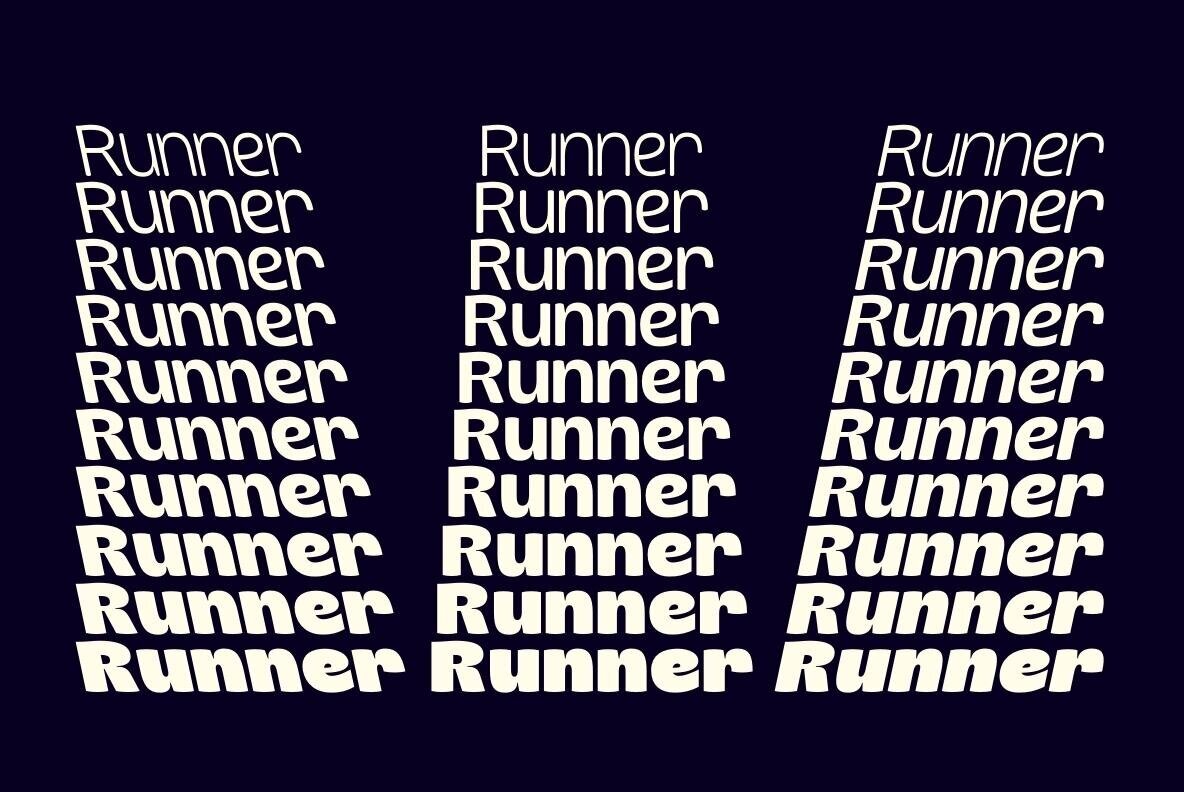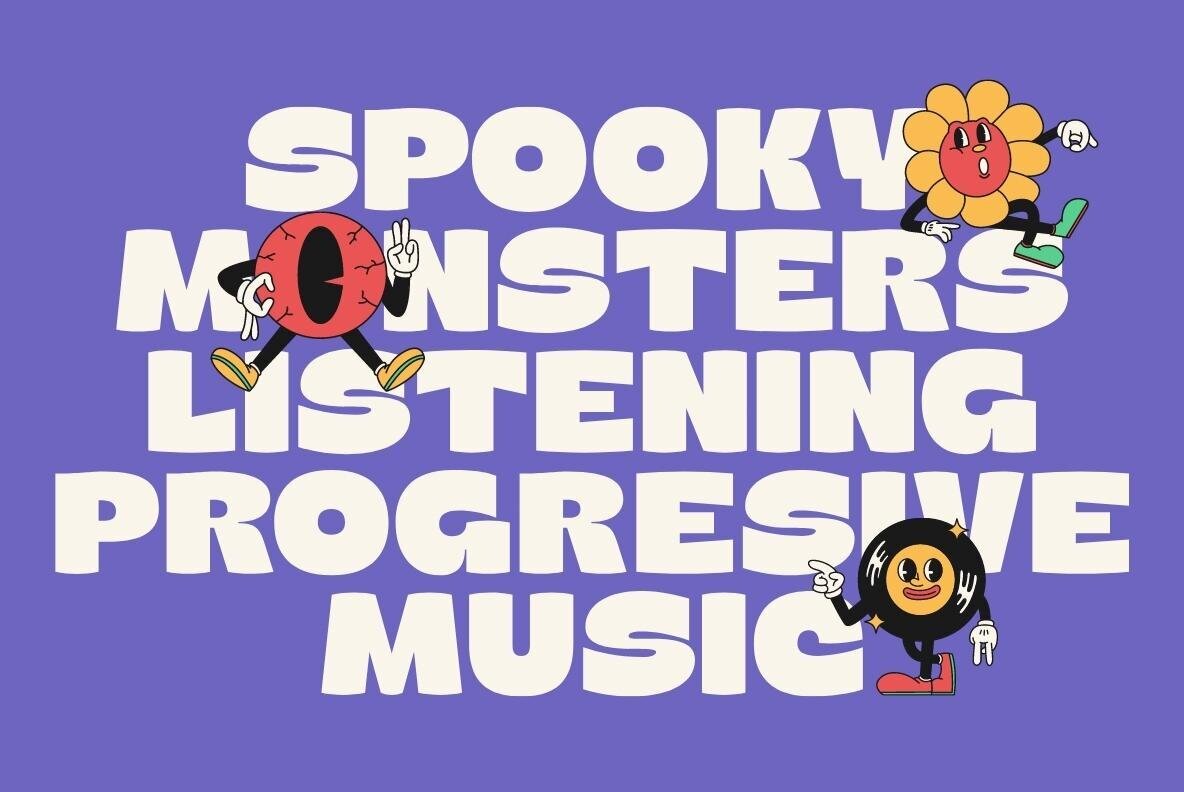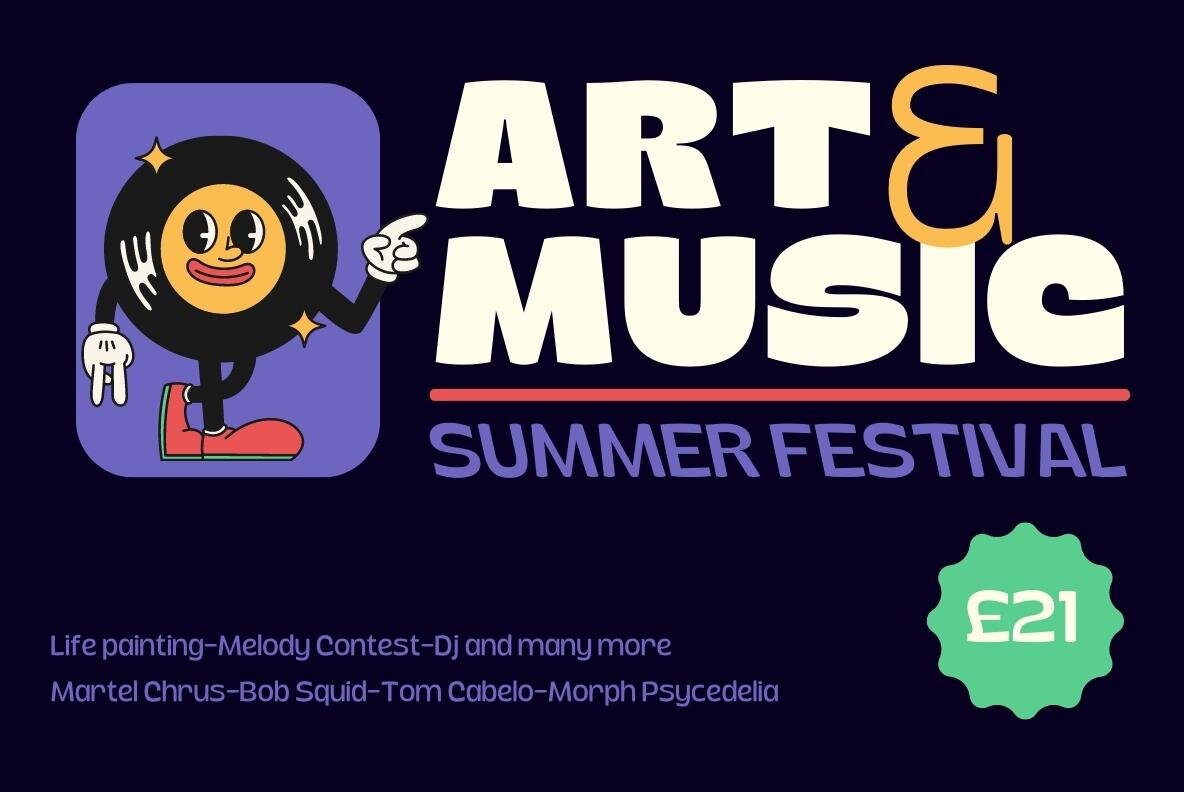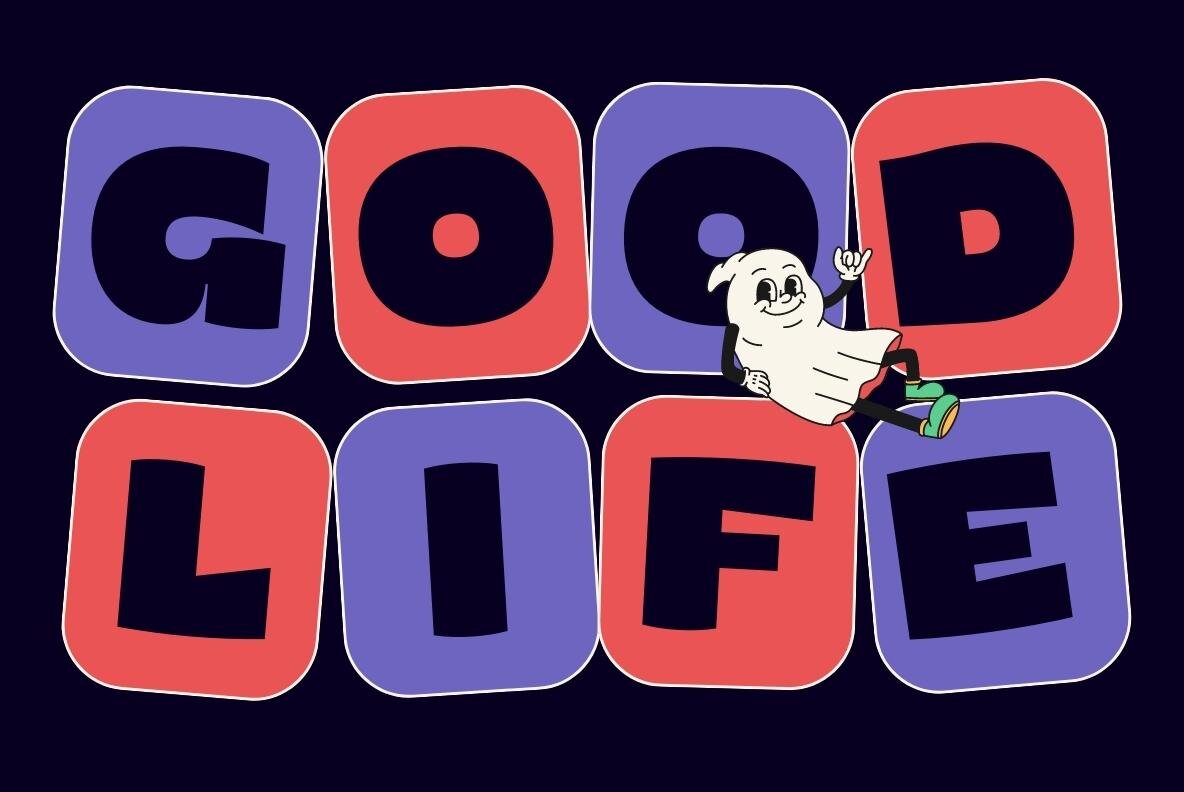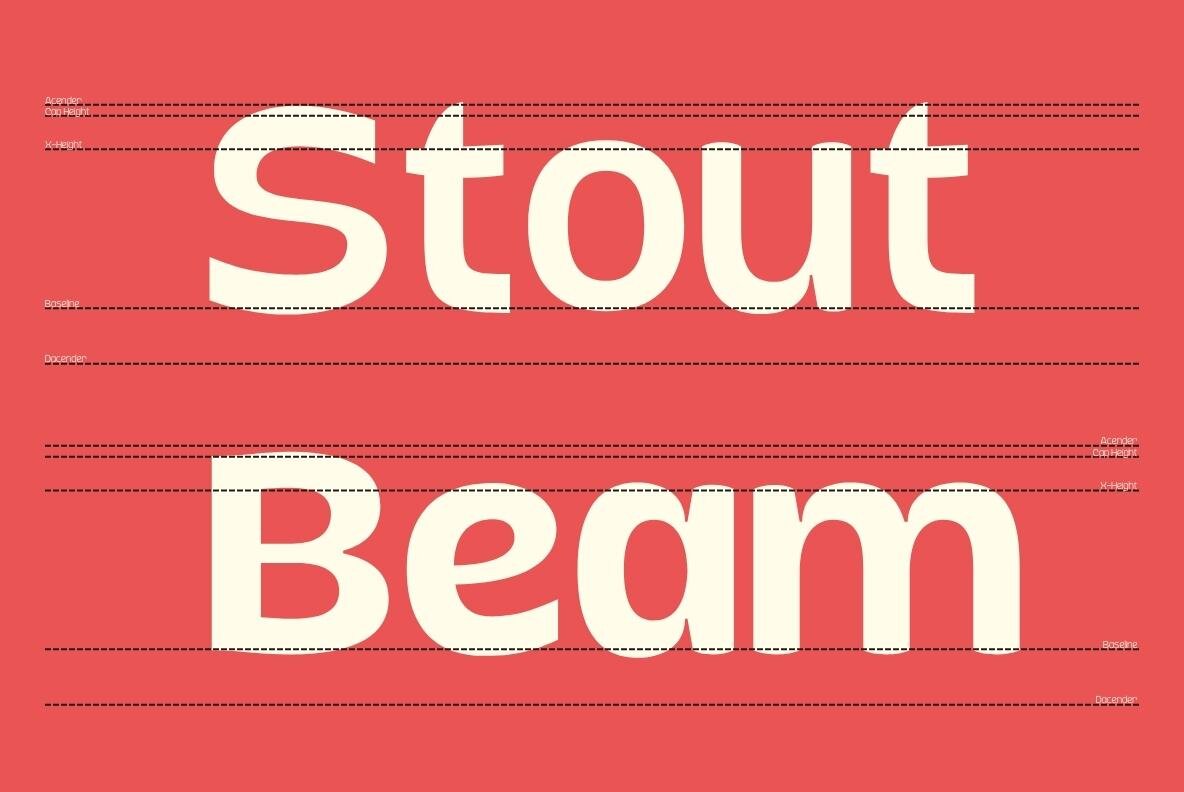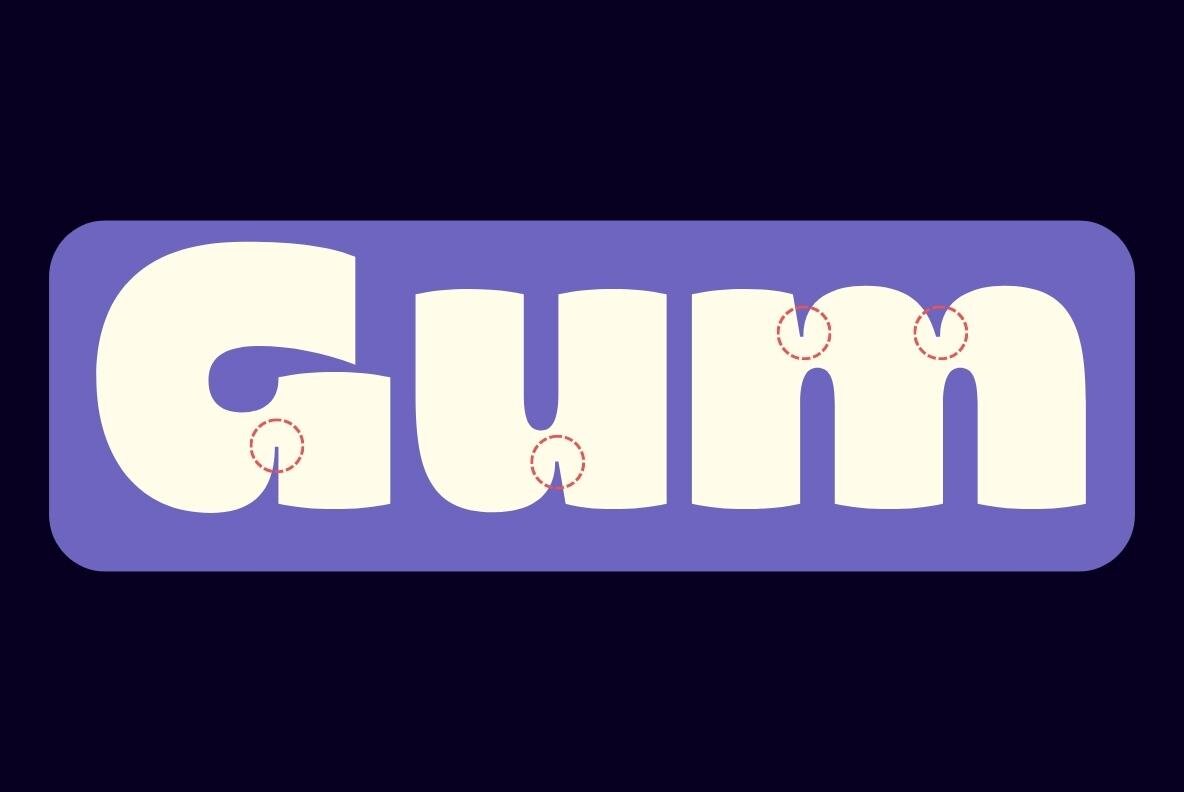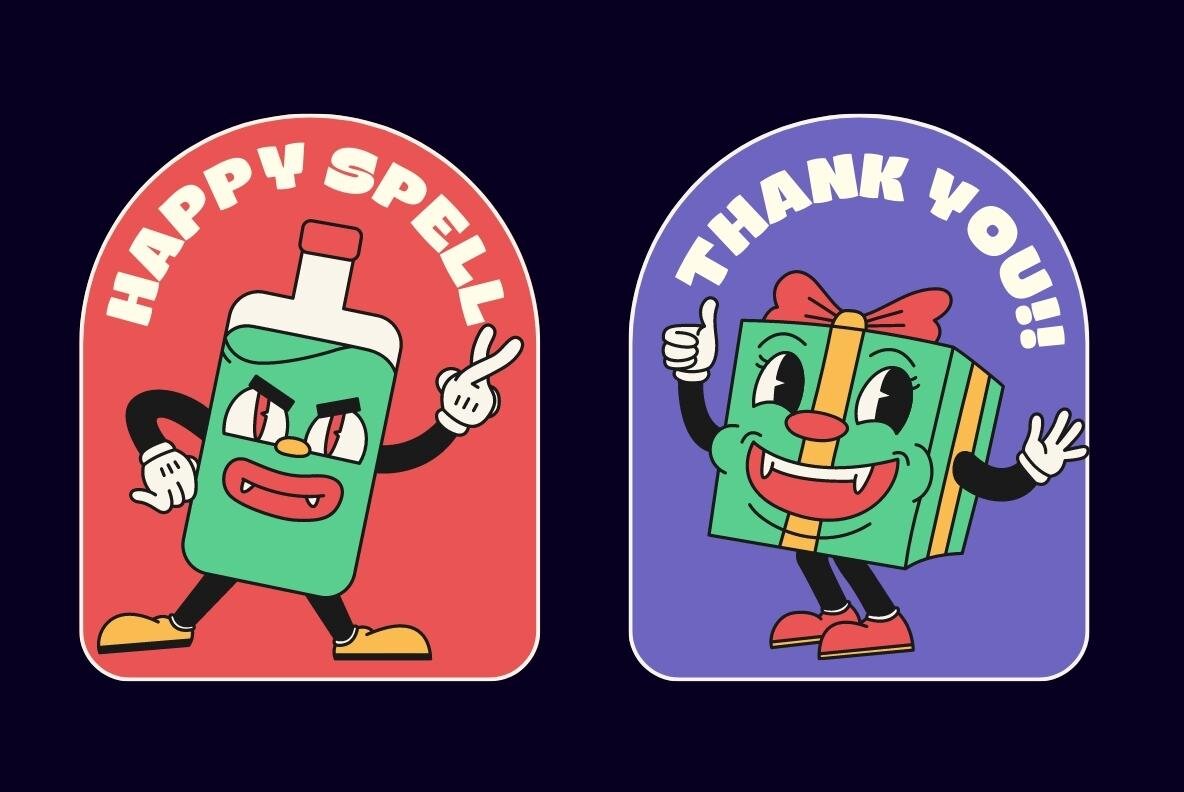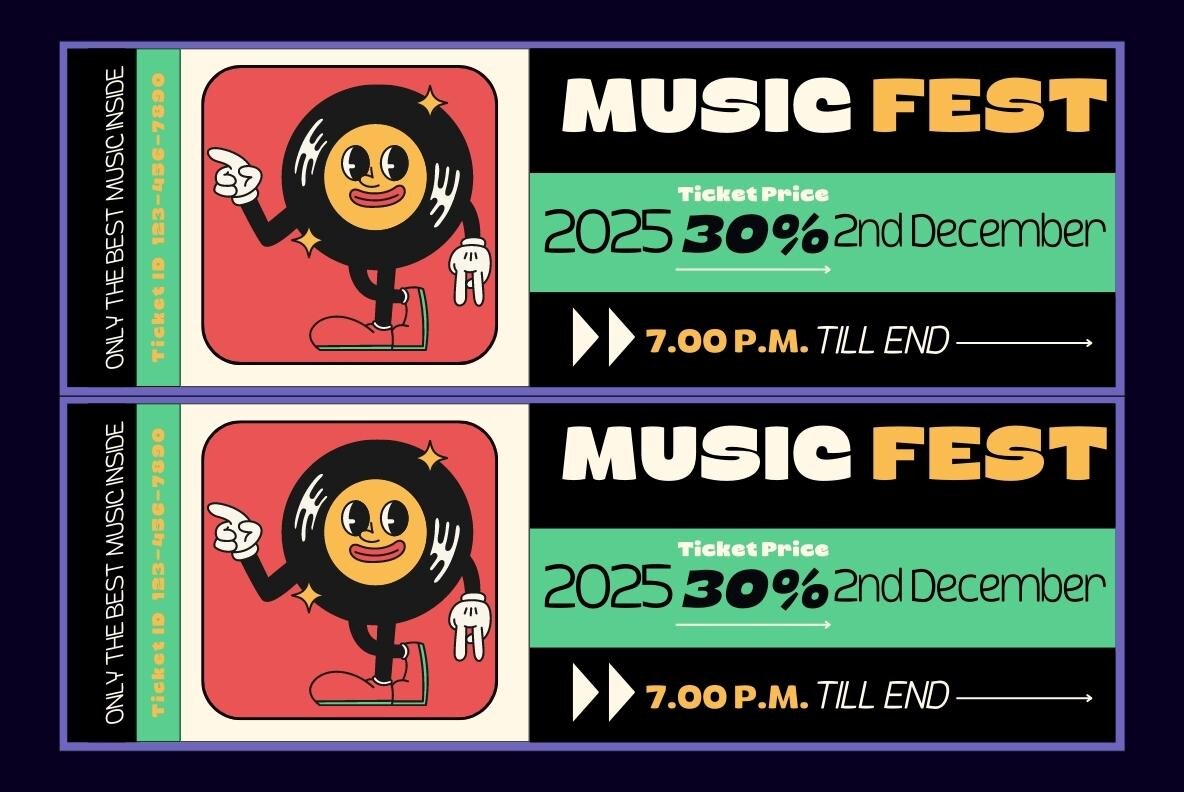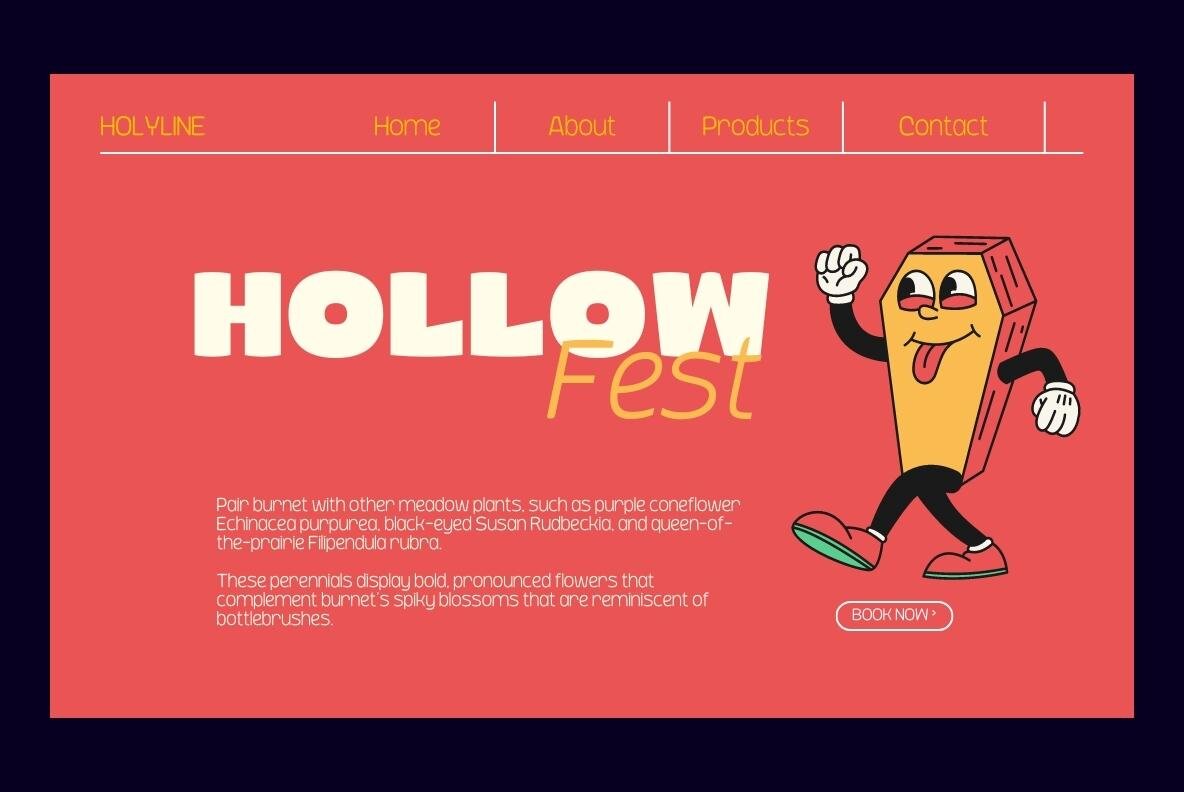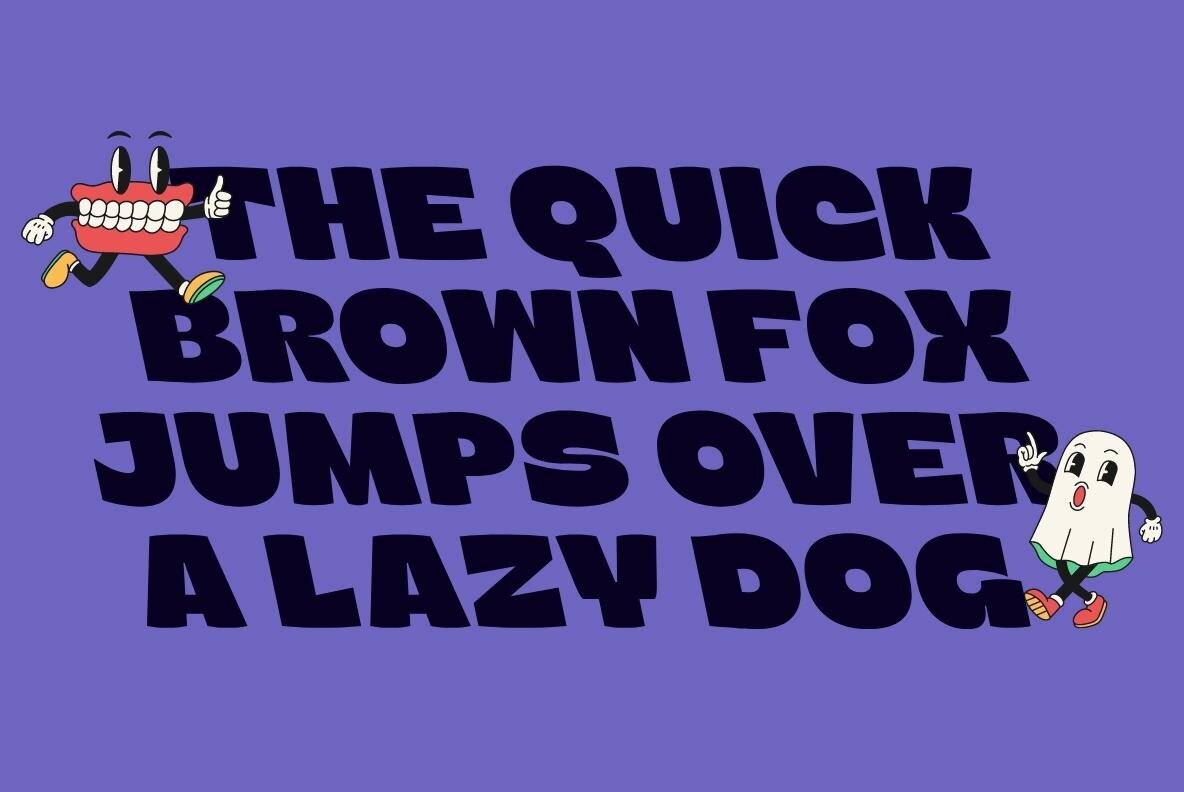
Sun Plumps Font
Sun Plumps is friendly and playfull sans serif family. This font comes in 10 weight with Slanted and Reslanted , there are a total 30 fonts and support variable font. This font is great for display projects such as posters, stickers, packaging and branding. Get the all style and play with the all style!